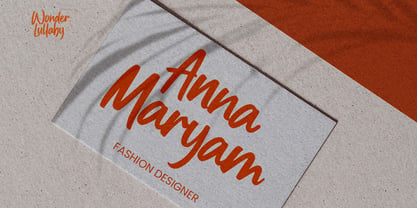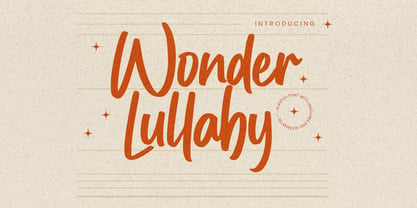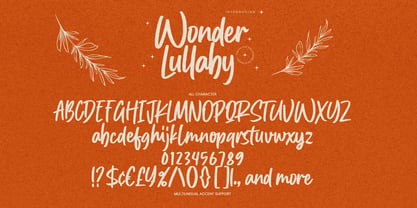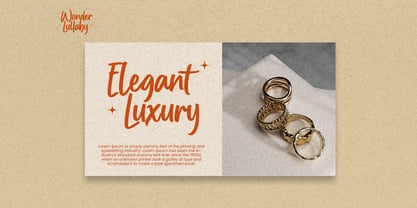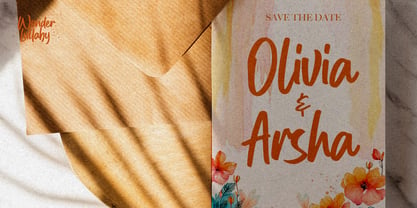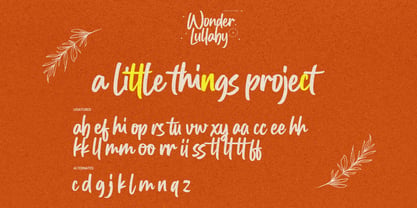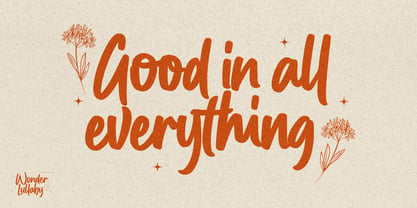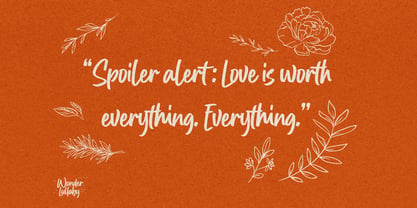
Wonder Lullaby
by Gassstype
The Wonder Lullaby Font Family was designed by Abdul Malik Wisnu and published by Gassstype. Wonder Lullaby contains 1 styles. More about this family
Wonder Lullaby is a playful font featuring ligatures and alternates, designed to bring a lively, whimsical feel to your projects. Perfect for logos, posters, product packaging, branding, advertisements, invitations, stationery, wedding designs, labels, photography watermarks, quotes, and more. This font is accessible in Adobe Illustrator, Adobe Photoshop, Adobe InDesign, and Microsoft Word, and includes PUA encoded characters for full accessibility and multilingual support. Add the bold and authentic character of Wonder Lullaby to your next project and capture the essence of minimalist aesthetics. Note: All images used in the preview are for illustration purposes only and are not included.
Designers: Abdul Malik Wisnu
Foundry: Gassstype